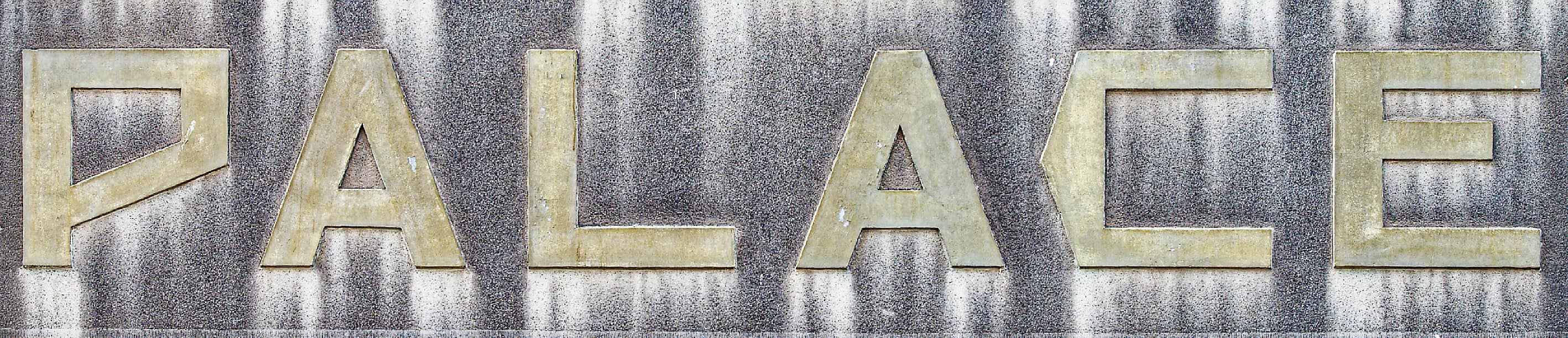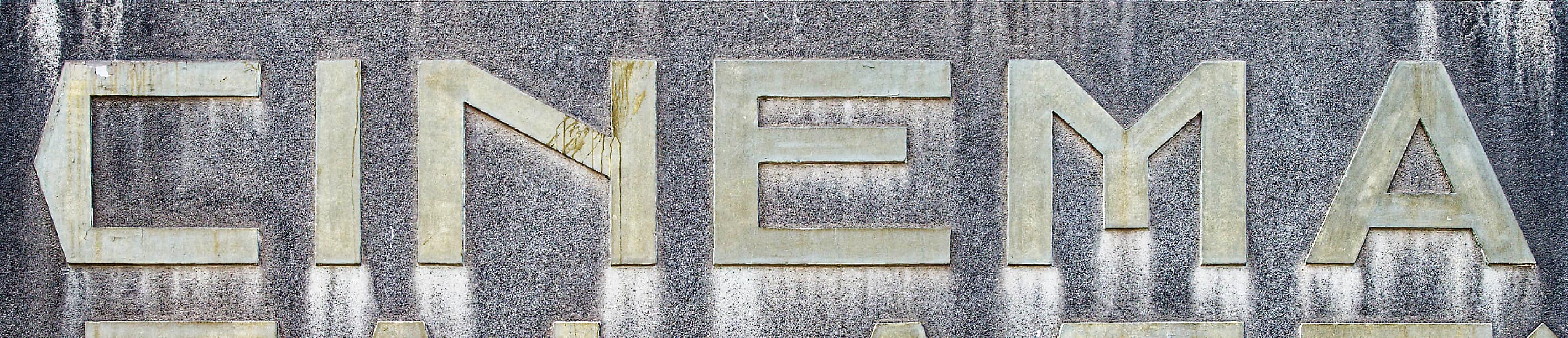
Bioskoop
Bioskoop is a Deco-inspired, expanded display typeface designed by Ramiro Espinoza. Its origins lie in the distinctive lettering found on the façade of the long-abandoned Cinema Palace, located at Lage Barakken 12 in Maastricht. The architects behind its design—and the creator of its striking lettering—remain unclear, yet the work reflects the elegance and optimism typical of early twentieth-century cinema architecture.
Espinoza reinterpreted these forms with dedication, translating them into a complete, functional type family suited for modern design needs. Bioskoop retains the theatrical flair of its source while adapting to digital environments with clarity and balance. Perfect for posters, film titles, signage, websites, signage, logos and editorial projects, Bioskoop invites designers to channel the atmosphere of the interwar period through a contemporary lens—where nostalgia meets modern craftsmanship.